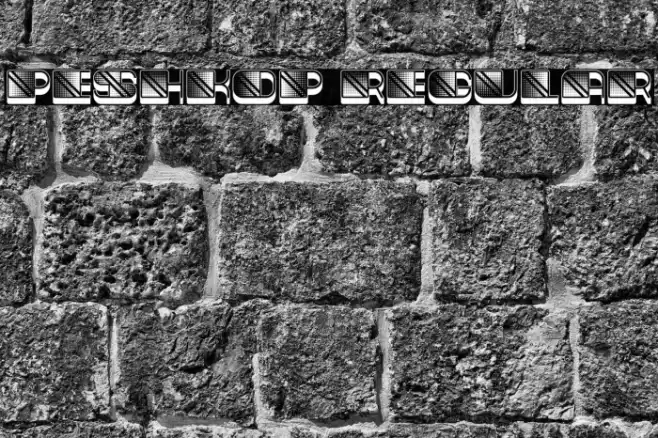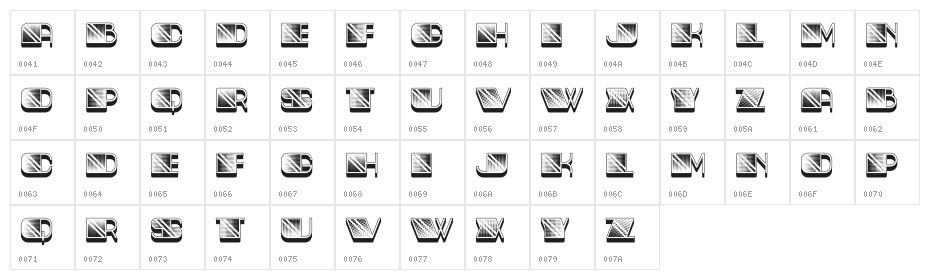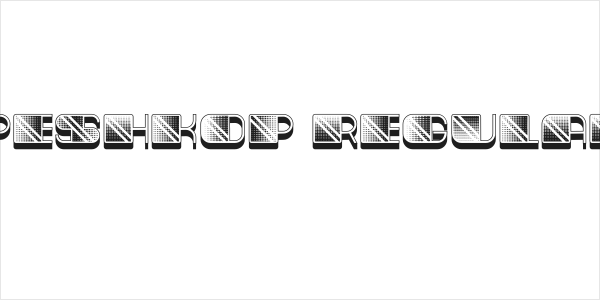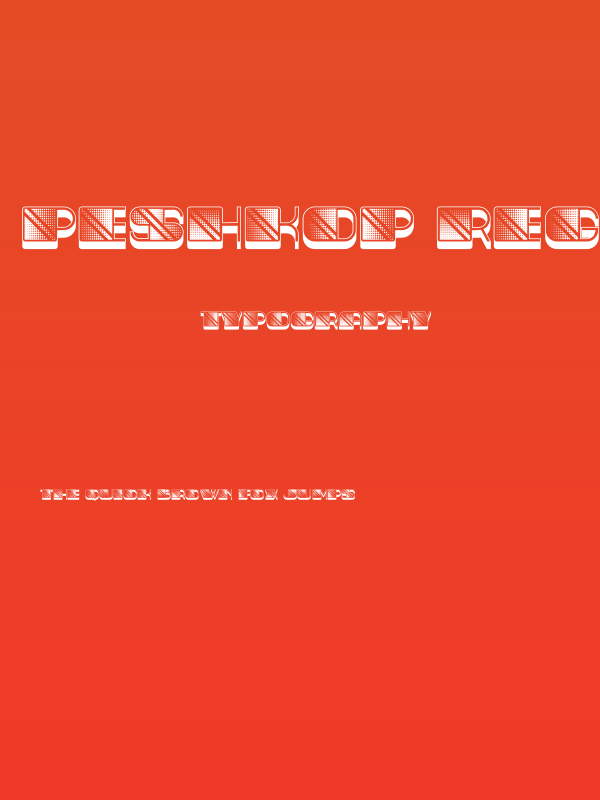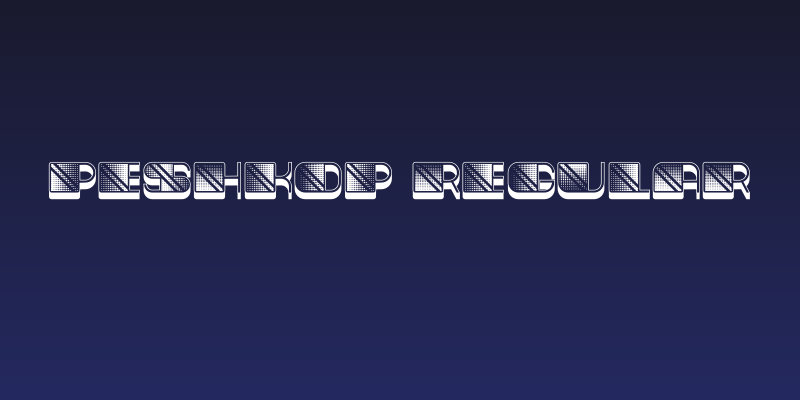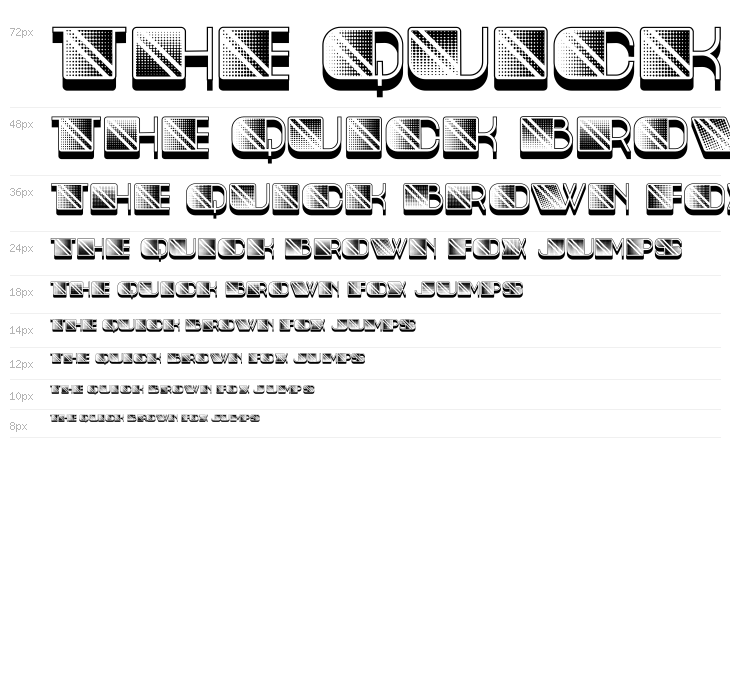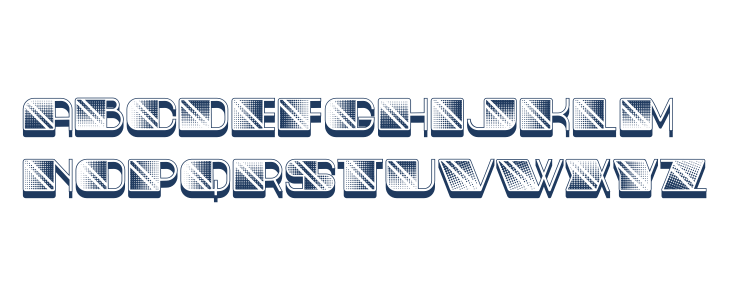
Peshkop Regular Font
Peshkop Regular Description
This font features a bold, decorative style with a three-dimensional effect. Each character is designed with a solid outline and an intricate pattern of diagonal lines filling the interior, creating a sense of depth and texture. The geometric structure of the letters is consistent, with sharp angles and clean lines that give it a modern and edgy appearance. The font's unique design makes it stand out, ideal for eye-catching displays. The spacing between characters is tight, enhancing its compact and impactful look. This font is perfect for projects that require a strong visual presence.
A bold, decorative font with a 3D effect and intricate line patterns from Decorative fonts.
- Proposed Projects: Ideal for posters, logos, headlines, and any design requiring a striking visual impact.
- Character Spacing: Tight